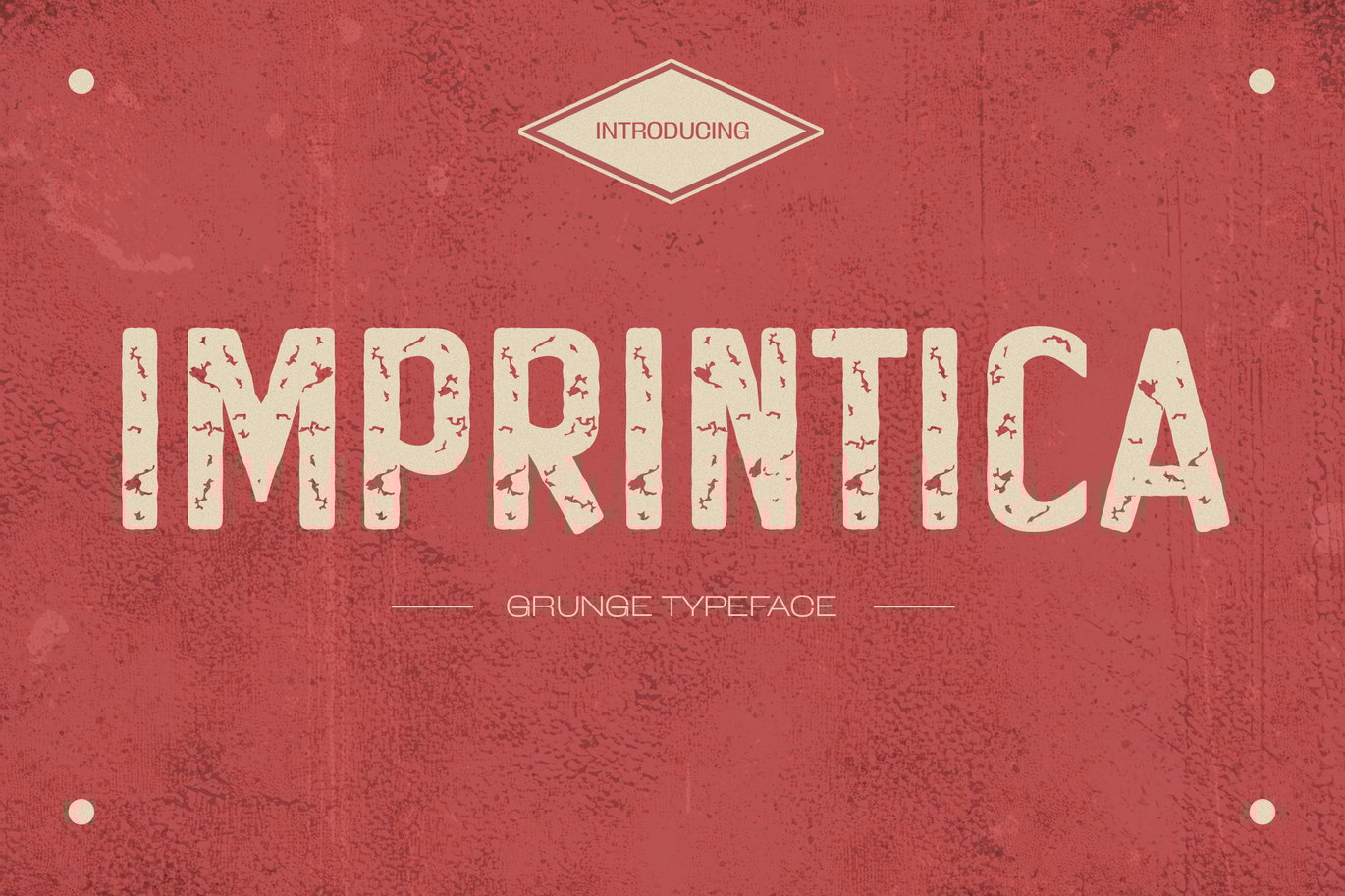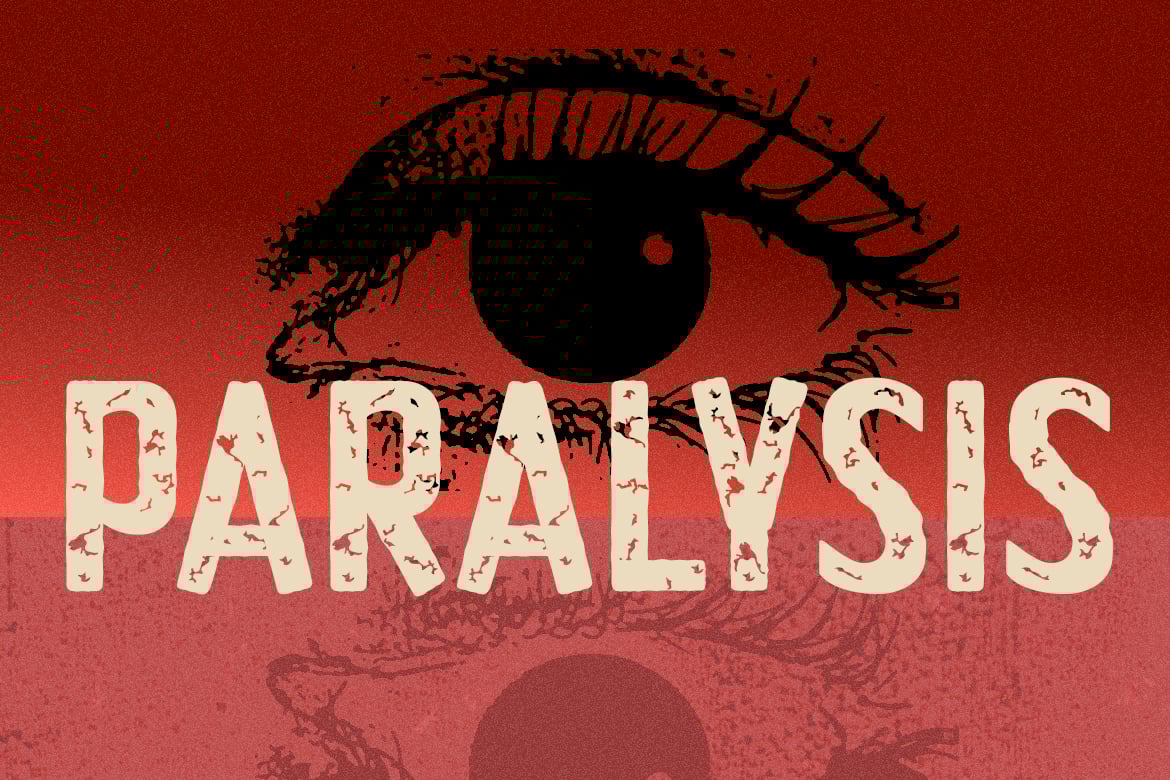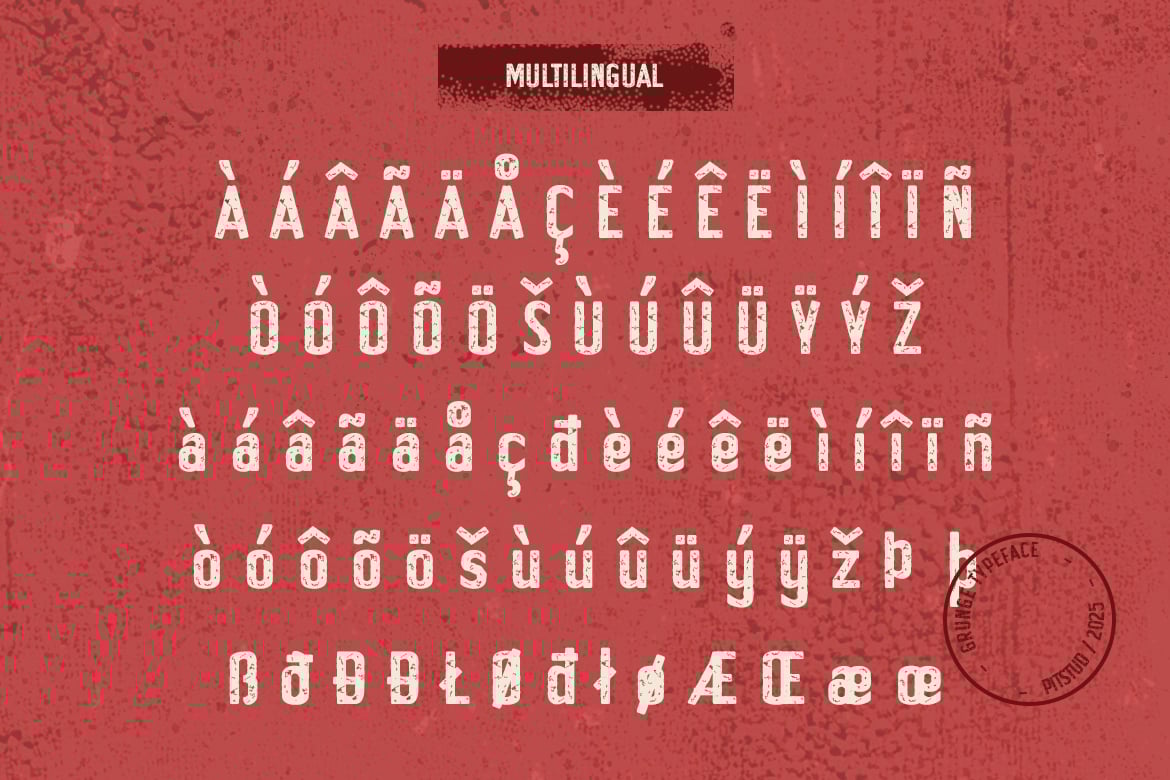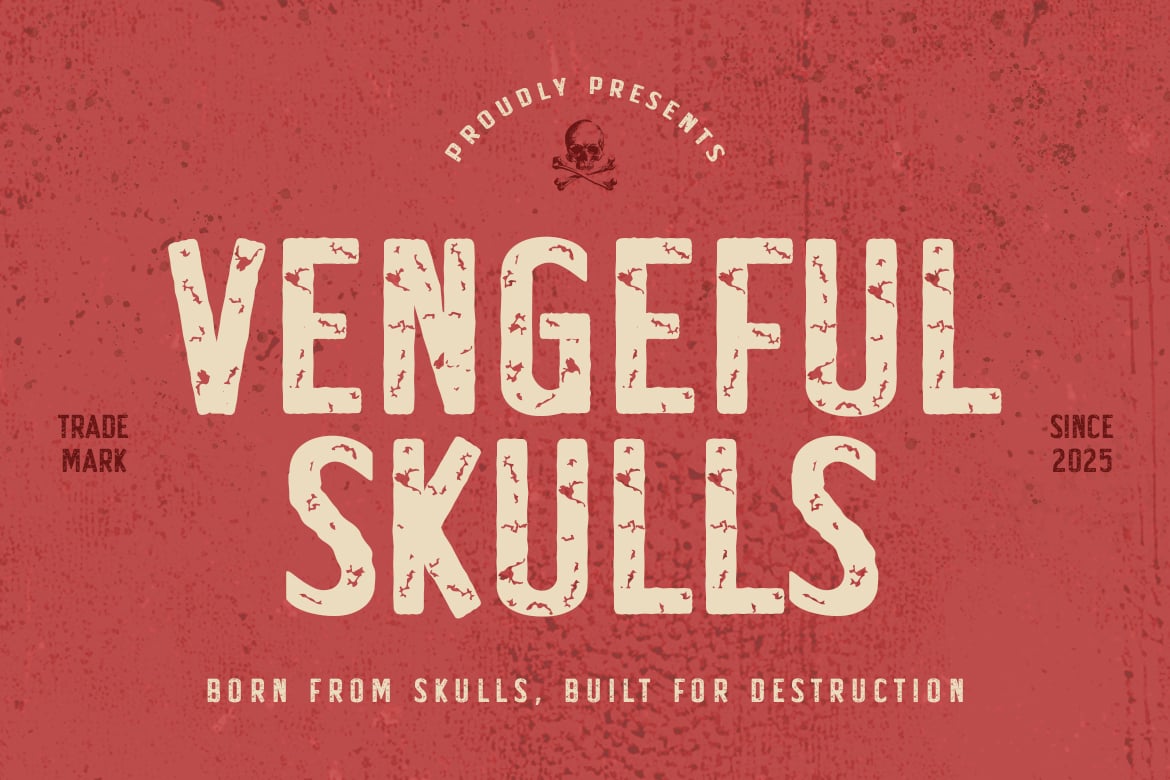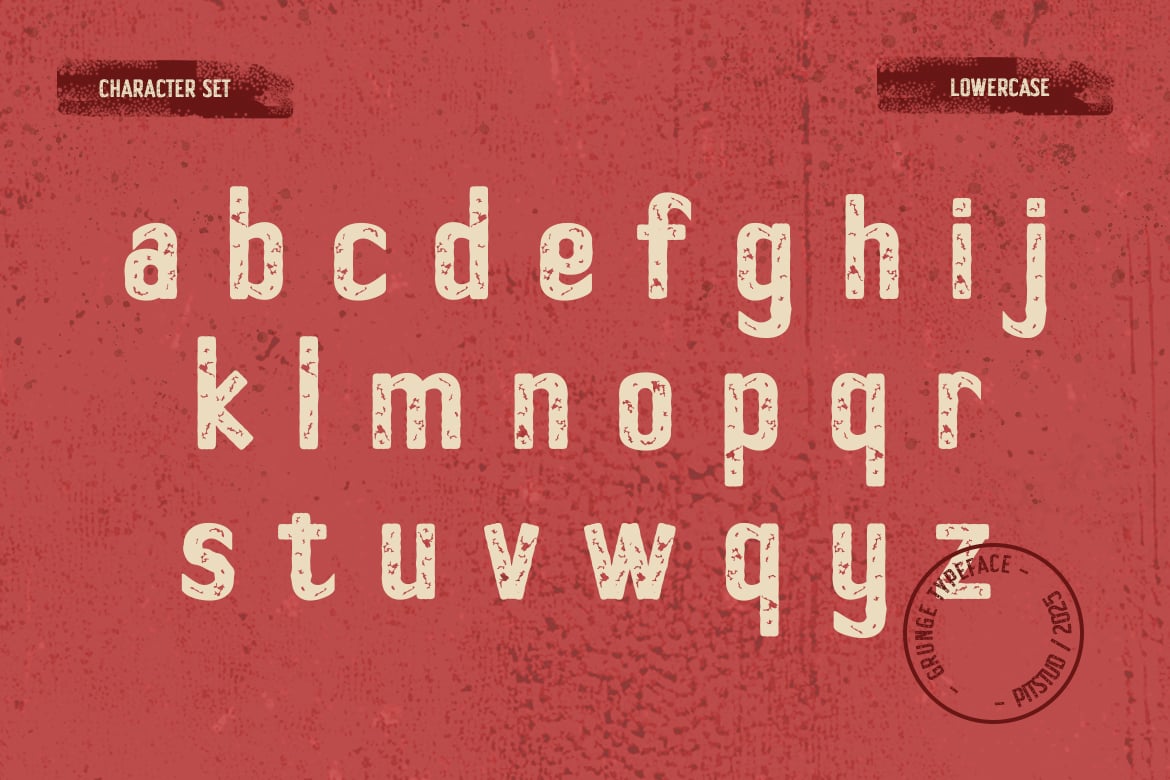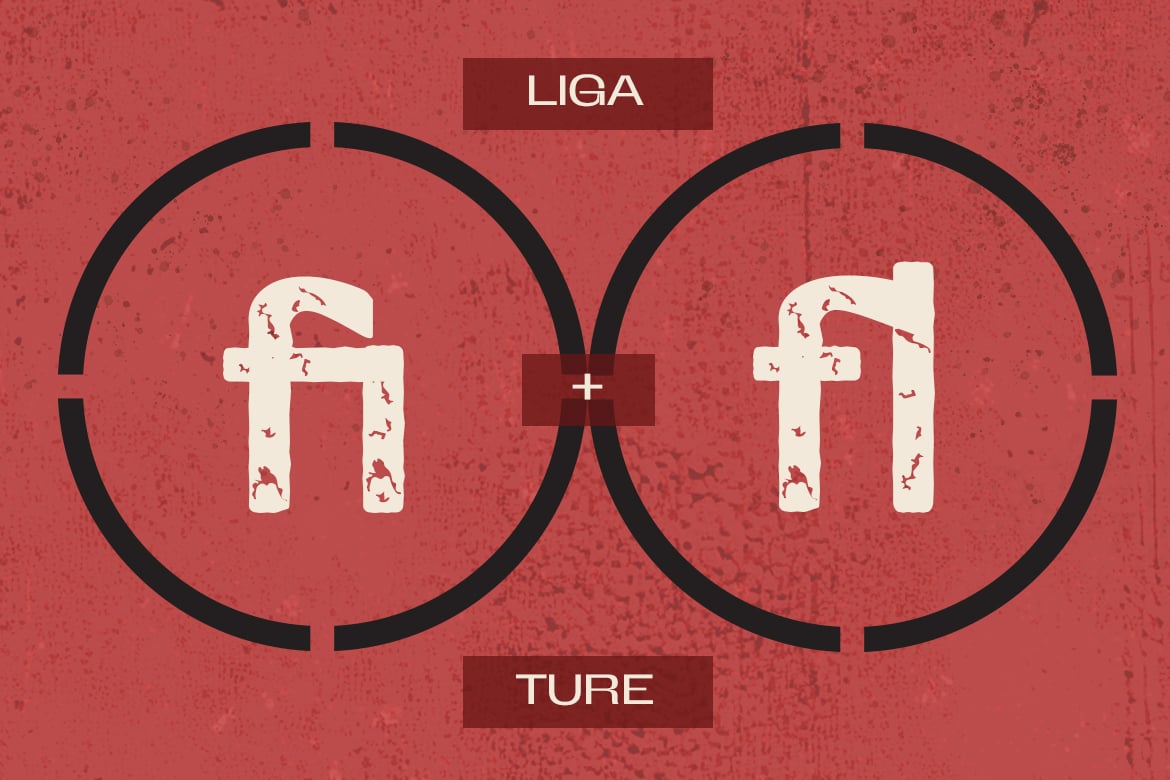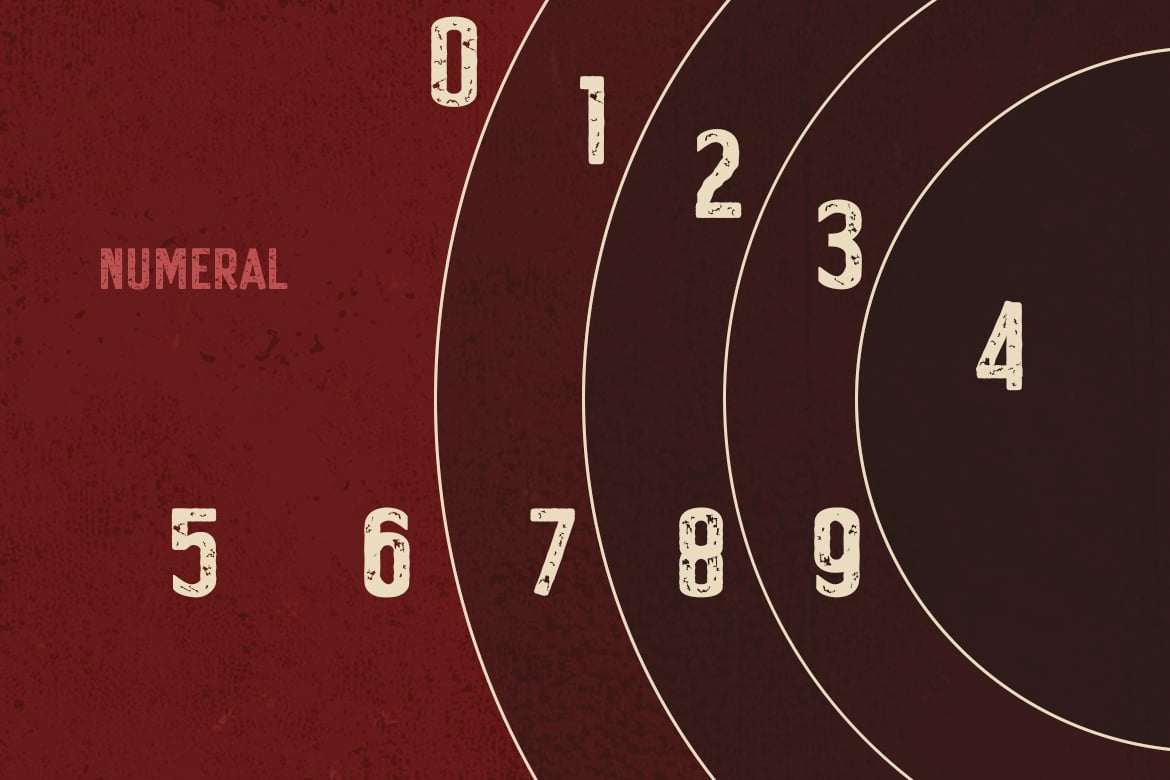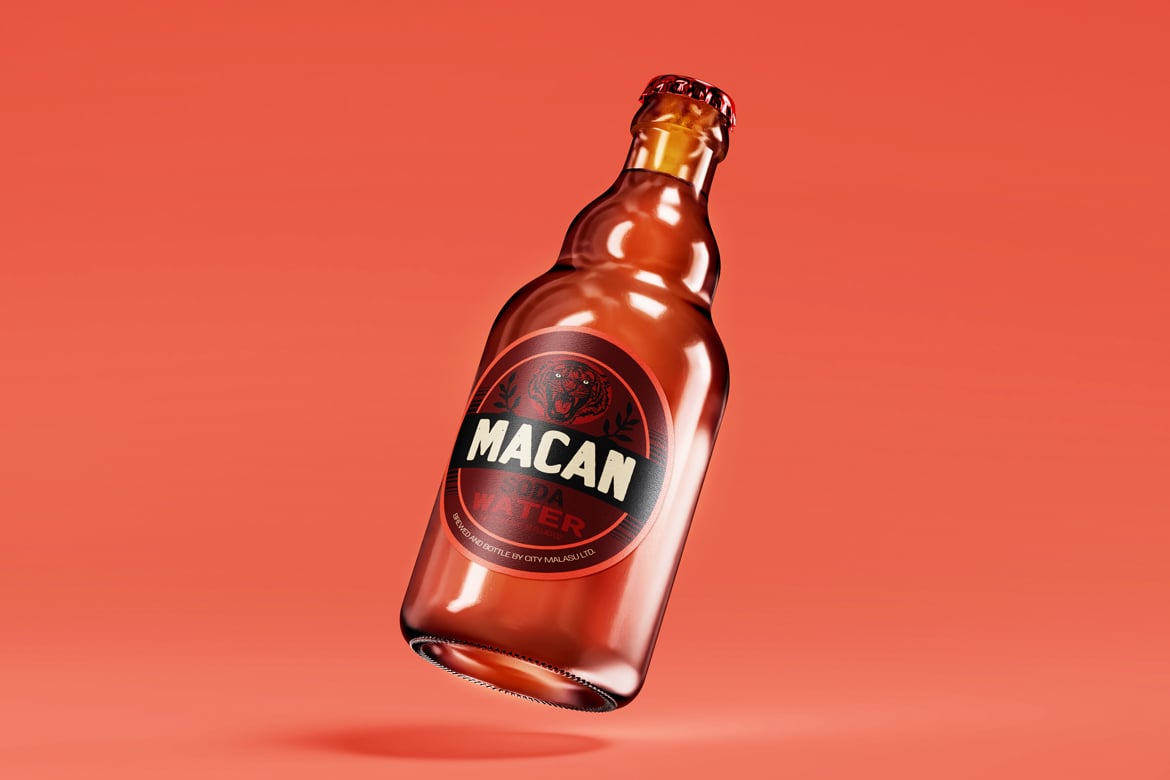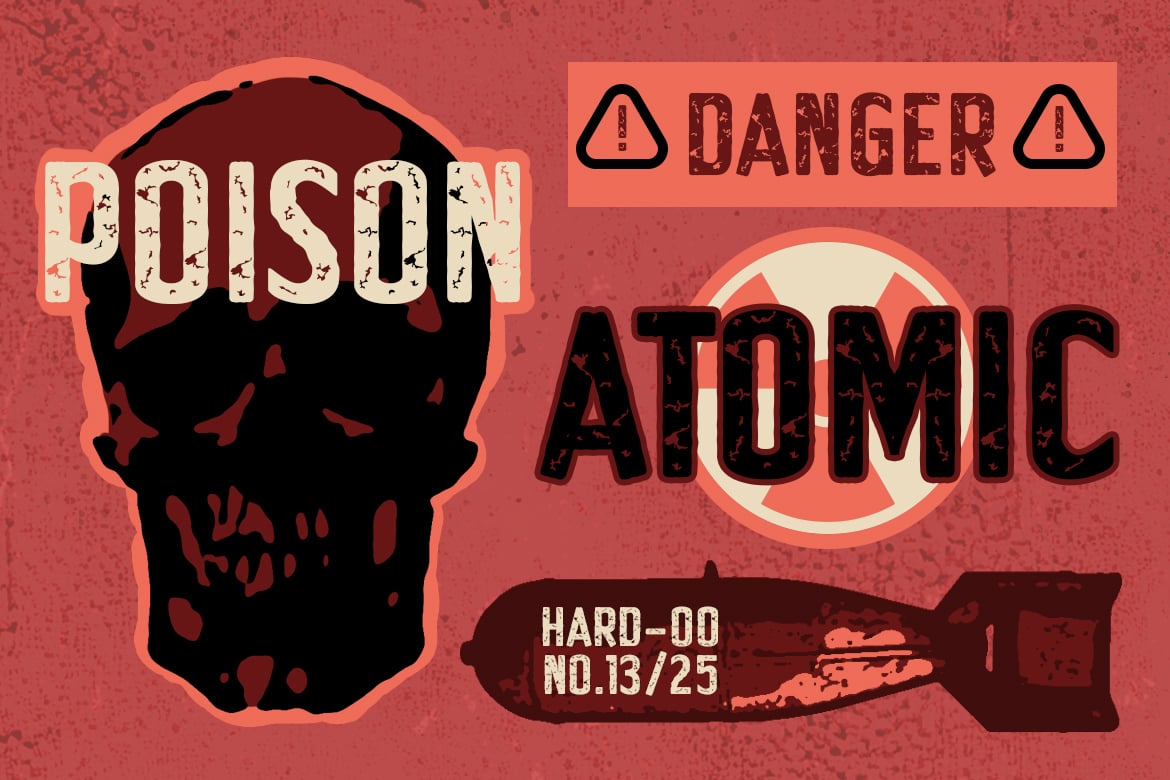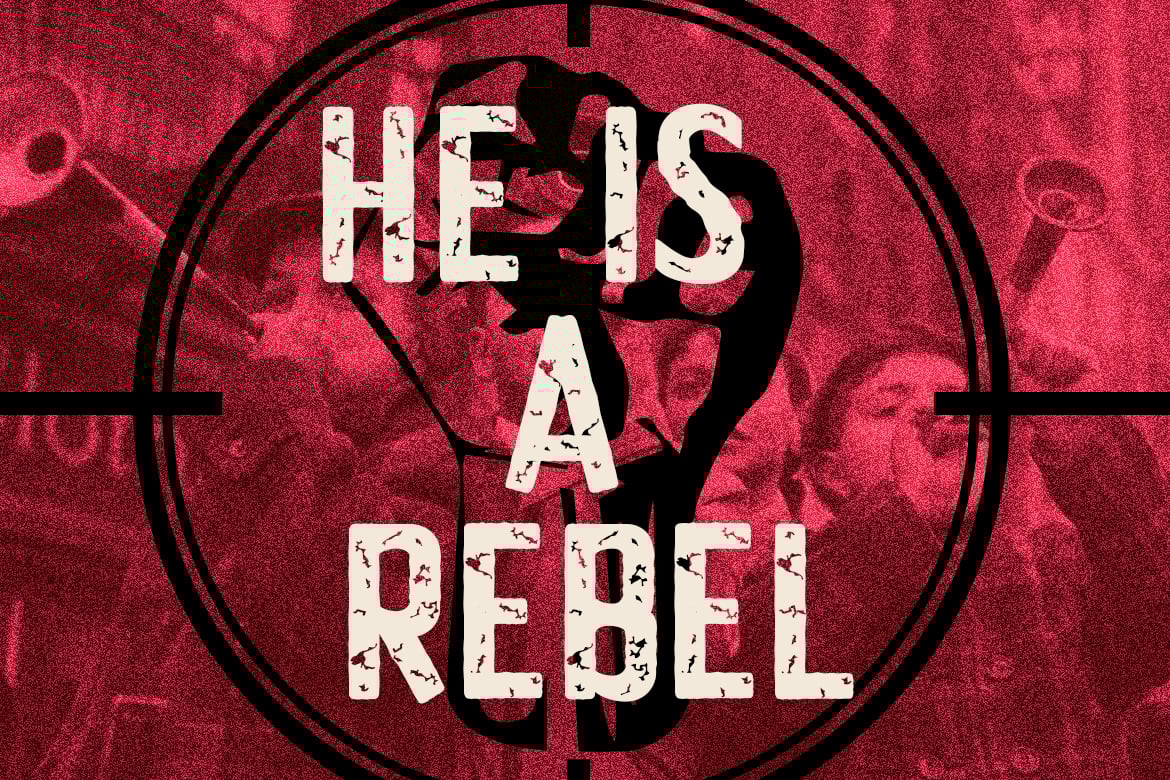
Imprintica – Distressed Vintage Font
Imprintica – Distressed Vintage Grunge Font
is a premium Distressed Vintage Grunge font designed to bring rustic charm to your branding and design projects. Crafted with modern grungy textures and distressed elements, this font offers a sleek, stylish, and professional touch for logos, marketing materials, packaging, and digital applications.
Perfect For
Whether you’re working on a retro branding project, Imprintica – Distressed Vintage Grunge Font will give your design a bold edge. It’s ideal for use in vintage logos, posters, and packaging.
Font Features:
- Clear and Versatile Design: Offers easy readability with a modern style that stands out in both digital and print mediums.
- Complete Character Set: Uppercase and lowercase characters, numbers, punctuation, and symbols.
- OpenType Features: Access alternates, ligatures, and unique stylistic sets to customize your design.
- Multilingual Support: Includes support for multiple languages, including English, Spanish, French, German, Portuguese.
Imprintica – Distressed Vintage Grunge Font combines rough textures and distressed detailing to create a striking visual impact while maintaining clarity. Whether you are designing for retro branding, vintage posters, and distressed design projects, this font adapts to your needs and enhances the visual appeal of your design.
Perfect For:
- Luxury Branding: Enhance your upscale brand identity with sophisticated fonts.
- Tech Startups: Give your tech brand a futuristic and sleek look.
- Corporate Identity: Bring professionalism to your corporate designs.
- Creative Ventures: Perfect for high-impact projects in the creative industry.
- Event Invitations: Create elegant, eye-catching event materials.